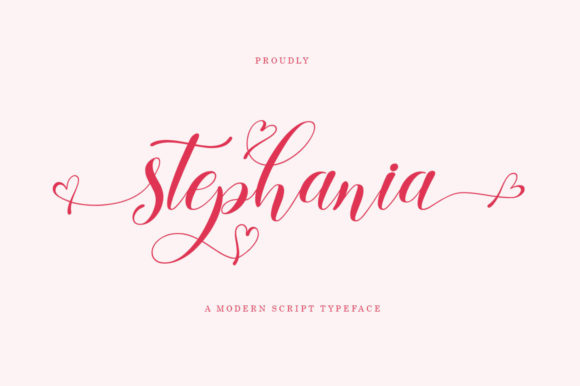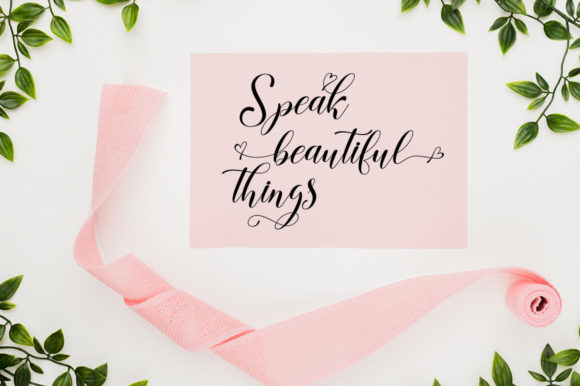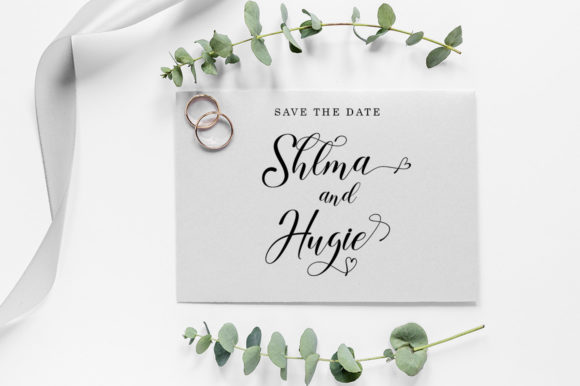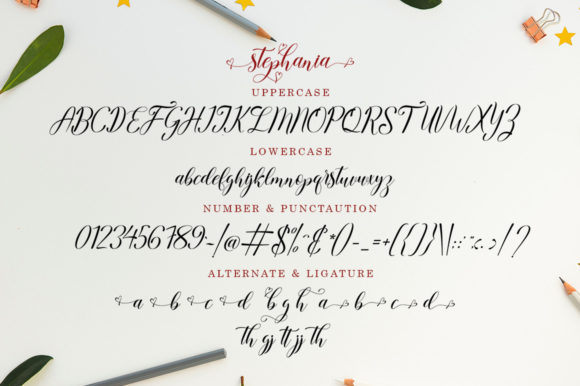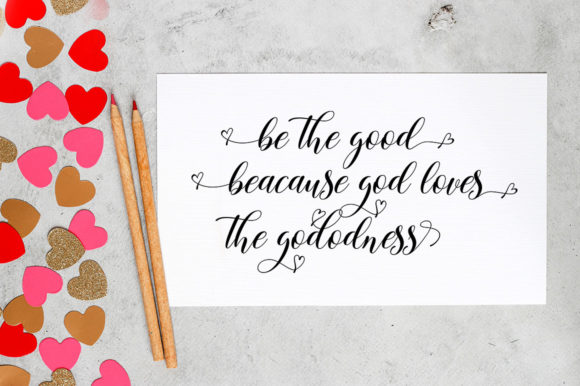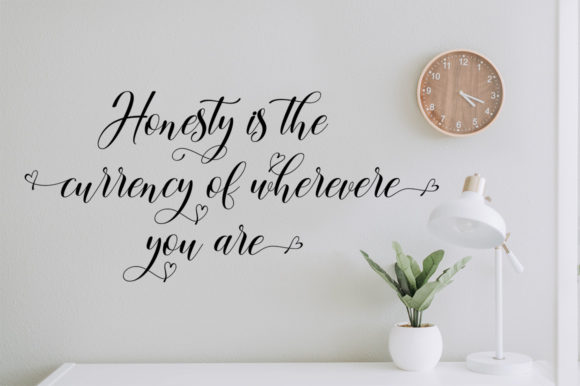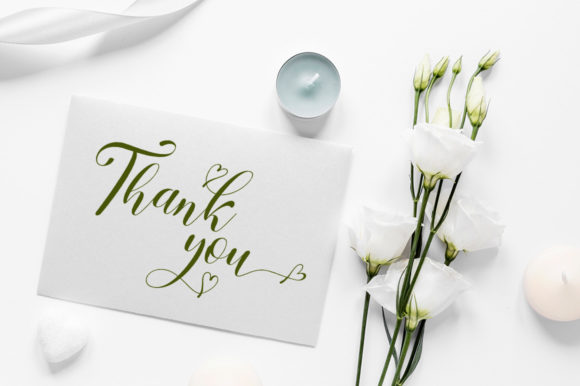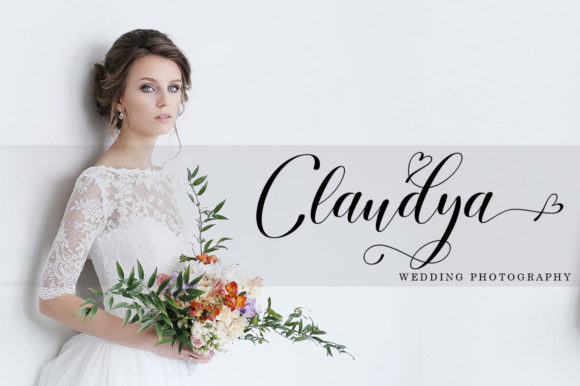
Stephania Font
About Stephania Font
Stephania is a collection of modern fonts featuring an organic, dynamic, and energetic style. They can be used for a variety of purposes, such as titles, signatures, logos, correspondence, wedding invitations, letterheads, signage, labels, newsletters, posters, badges, and more.